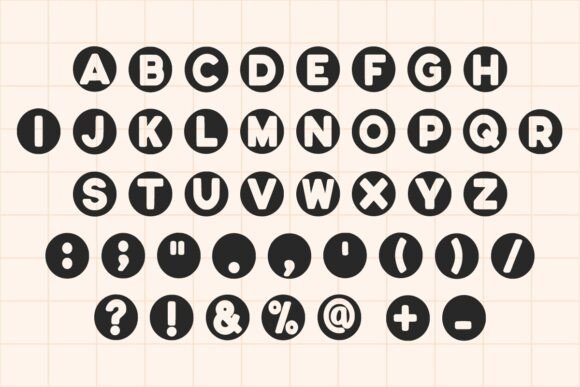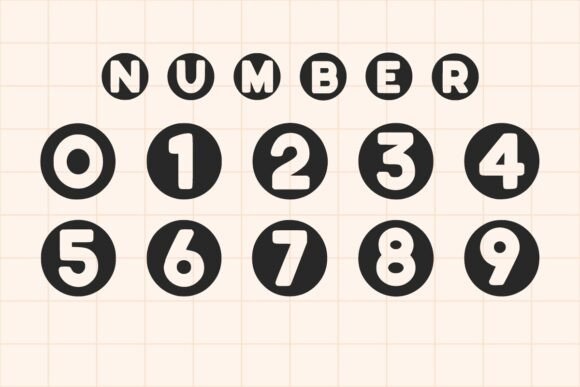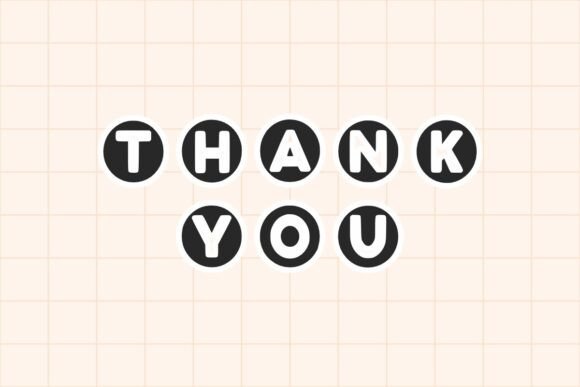
Introduction to Bomb Cars Font
Imagine you’re working on a creative project, and you’re struggling to find the perfect font to match your vibrant and playful design. You’ve spent hours browsing through design resources, but nothing seems to capture the essence of your vision. Then, you stumble upon the Bomb Cars Font – a round and fun decorative font that instantly elevates your design to the next level.
Whether you’re a seasoned designer or just starting out, the Bomb Cars Font is a game-changer. Its unique style and versatility make it an essential addition to any design arsenal, and its free download option makes it accessible to designers of all levels.
Bomb Cars Font
- High-quality font designed for creative projects, perfect for adding a touch of style to your designs.
- Features a transparent background, allowing for easy layering and manipulation in your design projects.
- Includes a range of unique characters and glyphs, making it perfect for creative and artistic projects.
- Designed to be highly scalable, with a resolution of up to 300 DPI for crisp and clear text output.
Honest Review: Bomb Cars Font
What works well: ✨ The Bomb Cars Font has a very distinct and modern design that will surely grab the attention of your audience. The transparent background option allows for a seamless integration with any background image or color, giving you a lot of flexibility in your design. The font is also highly customizable, making it perfect for various creative projects.
- Unique and modern design
Limitations: ⚠️ The Bomb Cars Font is only available in a limited number of styles and weights, which may be a drawback for designers who prefer a wider range of options. Additionally, the font may not be suitable for projects that require a more traditional or classic look.
Overall, the Bomb Cars Font is a great addition to any designer’s toolkit, especially for those working on modern and edgy projects. While it has some limitations, its unique design and high quality make it a valuable resource for any creative project.
Getting the Most Out of Bomb Cars Font
To get the most out of Bomb Cars Font, experiment with different font sizes and colors to create a unique look. You can also use the font in combination with other design elements, such as images and shapes, to create a visually appealing design.
Bomb Cars Font is a versatile design resource that can be used in a variety of creative projects, from logos and graphics to presentations and documents. Its high-quality design and transparent background make it a great choice for any project that requires a unique and professional look.